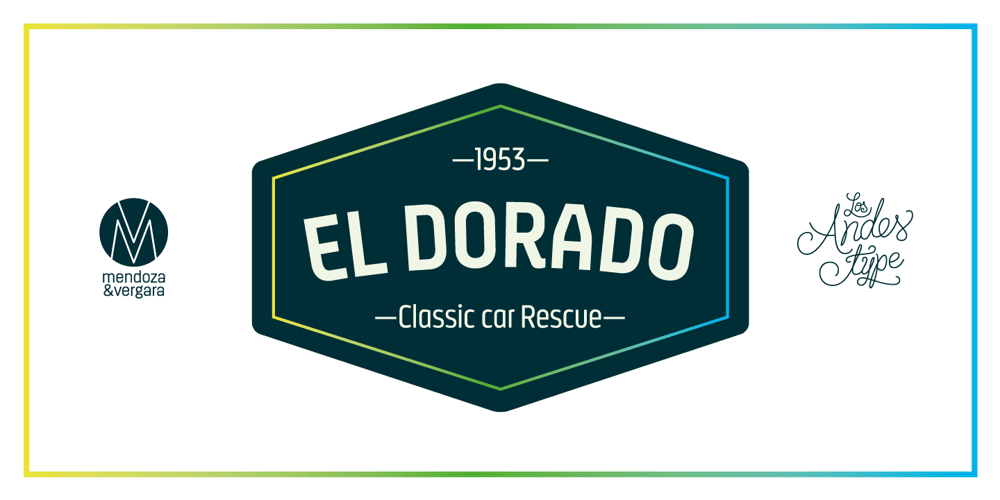
Styling Font Family was designed by Mendoza Vergara and published by Los Andes. Styling contains 20 styles and family package options. Styling is a simple, light, sans-serif typeface inspired on old cars and planes with an aerodynamic shape. The font comes in 5 weights plus italics. Styling and Styling Alt families offer professionals a wide range of creative options. Styling was created in 2014, while its designer was 30,000 feet in the air and the plane was flying over some Latin America cities. A flight full of flavours and shapes. This typeface is the result of anxiety and speed. Keep on rollin’ and fly high with Styling!